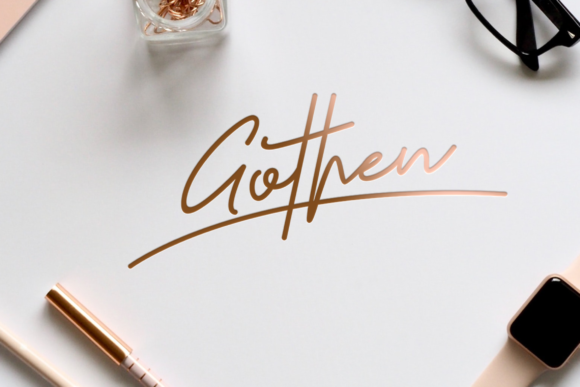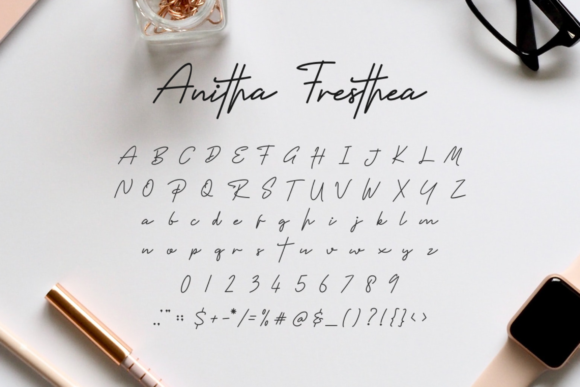
Introducing Anitha Fresthea Font: Elevate Your Designs with Elegance and Style
In the world of typography, a font can make or break a design. For designers and crafters looking for that perfect touch of elegance and fashion, Anitha Fresthea Font is here to transform your creative projects. This delicate and fashionable script font is not just a typeface; it’s an artistic statement that can elevate your branding, logos, t-shirt printing, and creative products to new heights.
The Essence of Anitha Fresthea Font
Anitha Fresthea Font stands out with its unique blend of delicacy and fashion-forward design. Its script style is meticulously crafted to add a touch of sophistication and charm to any project. Whether you’re working on a logo, a t-shirt design, or any creative product, this font promises to make your work stand out. Its versatility means it can be used in a variety of contexts, from digital media to print, without losing its appeal.
Perfect for Branding Projects
Branding is all about creating a memorable impression, and typography plays a crucial role in this. Anitha Fresthea Font, with its elegant and stylish appearance, is perfect for branding projects. It can help in creating logos that are not just visually appealing but also convey a sense of luxury and sophistication. The font’s unique style ensures that your brand stands out in a crowded marketplace, making it more noticeable and memorable to your target audience.
Unleash Your Creativity with T-Shirt Printing
T-shirt printing is a popular way to express creativity and personal style. With Anitha Fresthea Font, you can create designs that are both fashionable and eye-catching. The font’s script style adds a touch of elegance to any t-shirt design, making it perfect for custom apparel. Whether you’re designing for a client or creating your own merchandise, Anitha Fresthea Font can help you achieve a professional and stylish look.
Ideal for Creative Products
From stationery to home decor, Anitha Fresthea Font can add a touch of elegance to a wide range of creative products. Its delicate and fashionable design makes it perfect for use on mugs, notebooks, wall art, and more. The font’s versatility ensures that it can be used in various design contexts, allowing you to experiment with different styles and themes.
Why Choose Anitha Fresthea Font?
So, why should you choose Anitha Fresthea Font for your projects? Here are a few reasons:
- Elegance and Style: The font’s delicate and fashionable design adds a touch of sophistication to any project.
- Versatility: It can be used in a variety of contexts, from digital media to print.
- Memorability: The unique style of Anitha Fresthea Font makes it memorable, perfect for branding projects.
- Easy to Use: The font is easy to integrate into your designs, making it convenient for crafters and designers.
Anitha Fresthea Font is more than just a typeface; it’s a design element that can elevate your projects with its elegance and style. Whether you’re a designer working on a branding project or a crafter creating unique products, this font is sure to inspire. Its versatility, combined with its fashionable design, makes it a valuable addition to your typography collection. So, why wait? Explore the creative possibilities with Anitha Fresthea Font and take your designs to the next level.